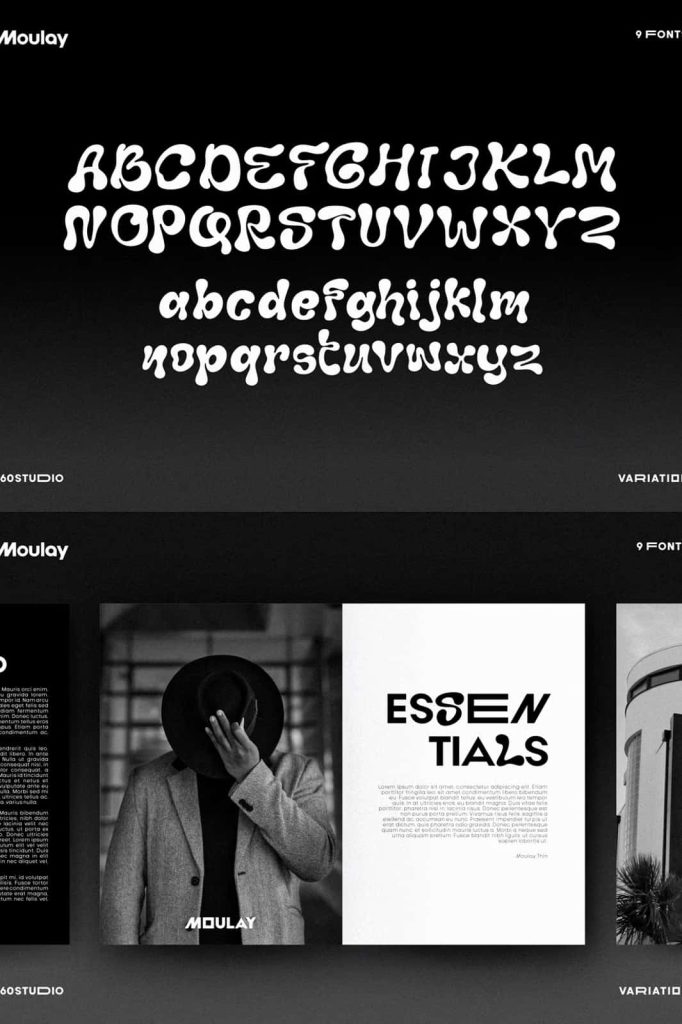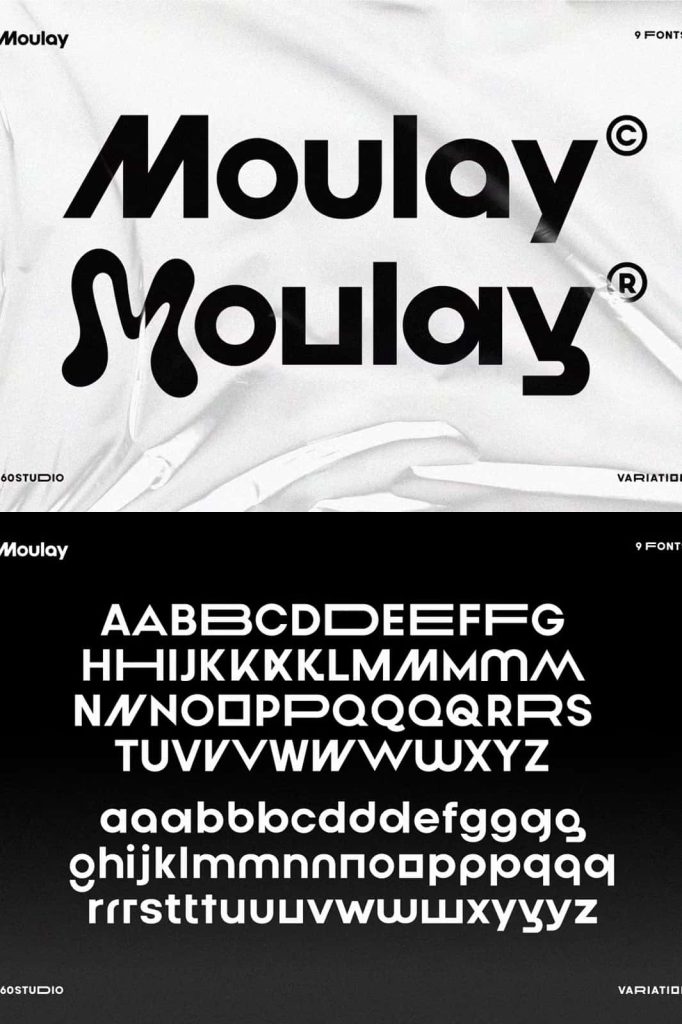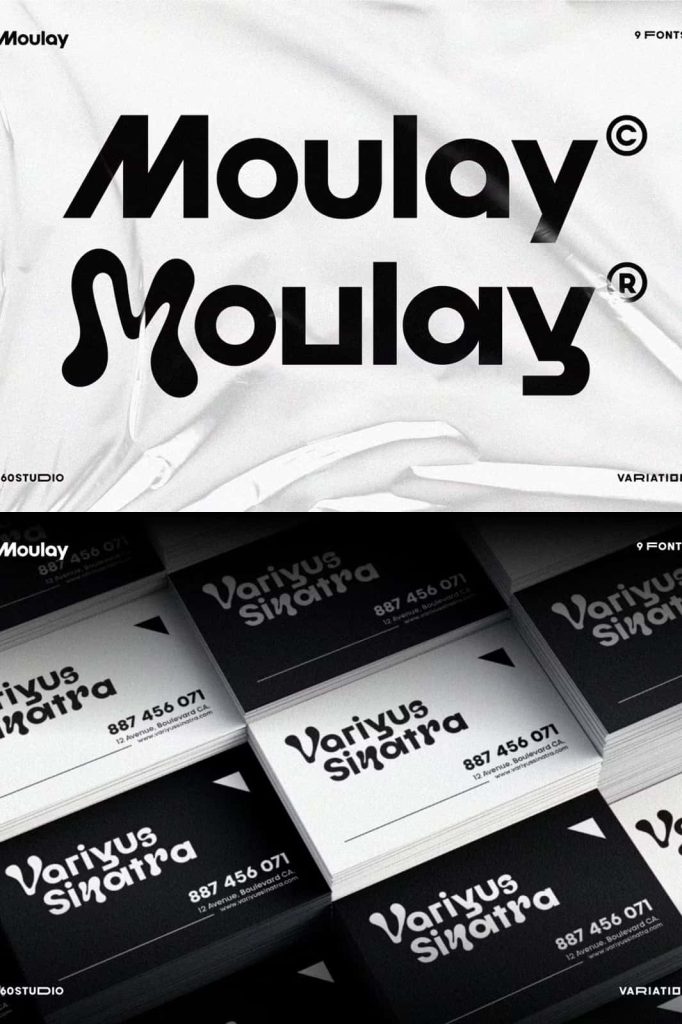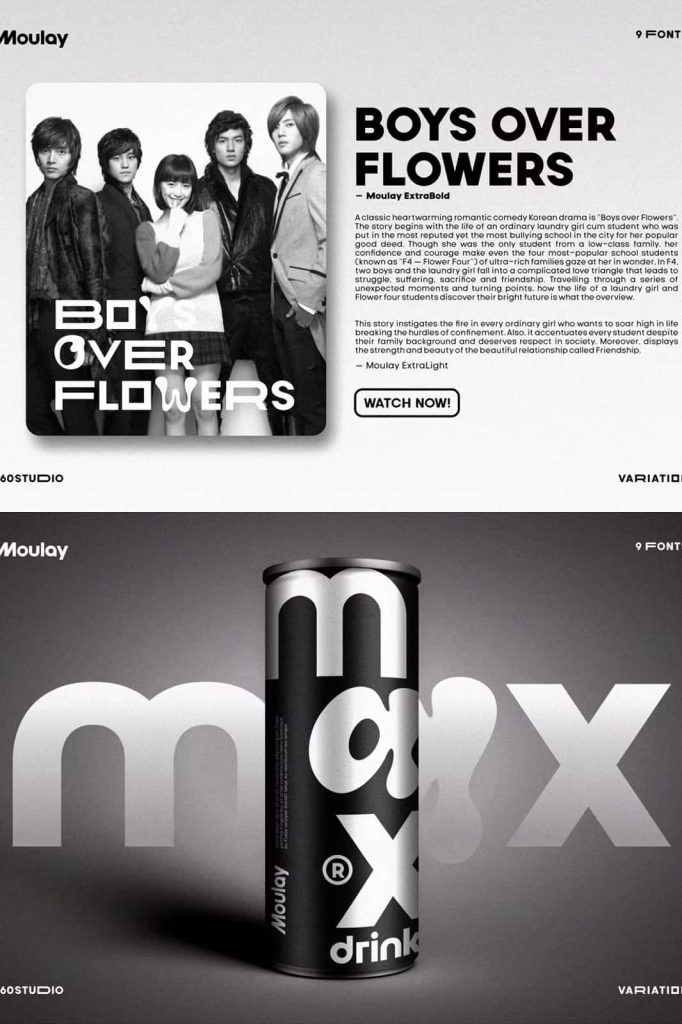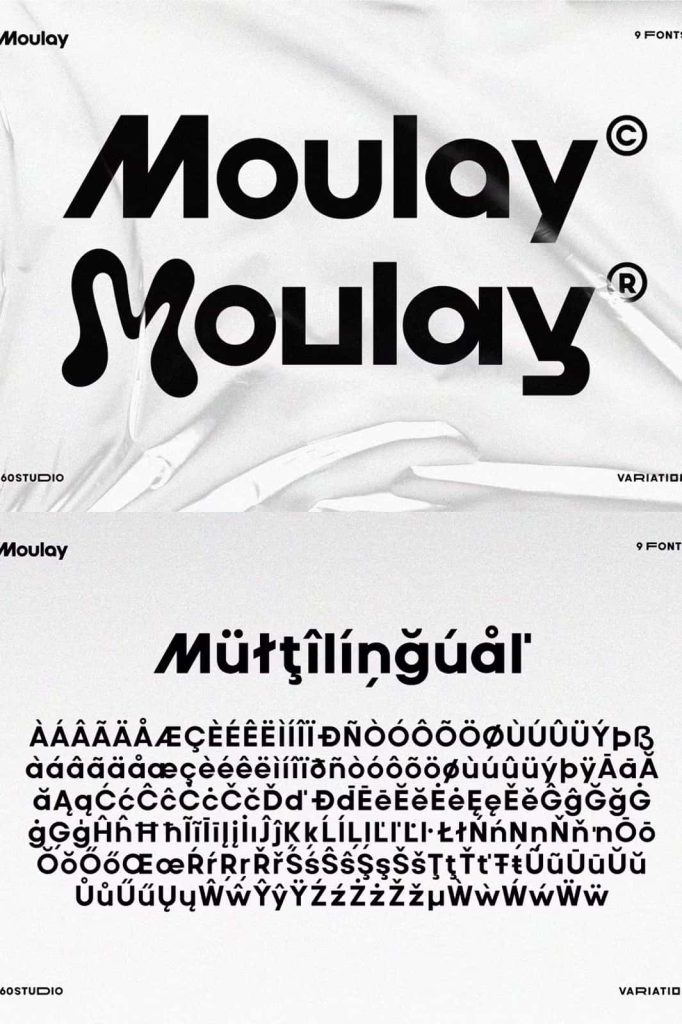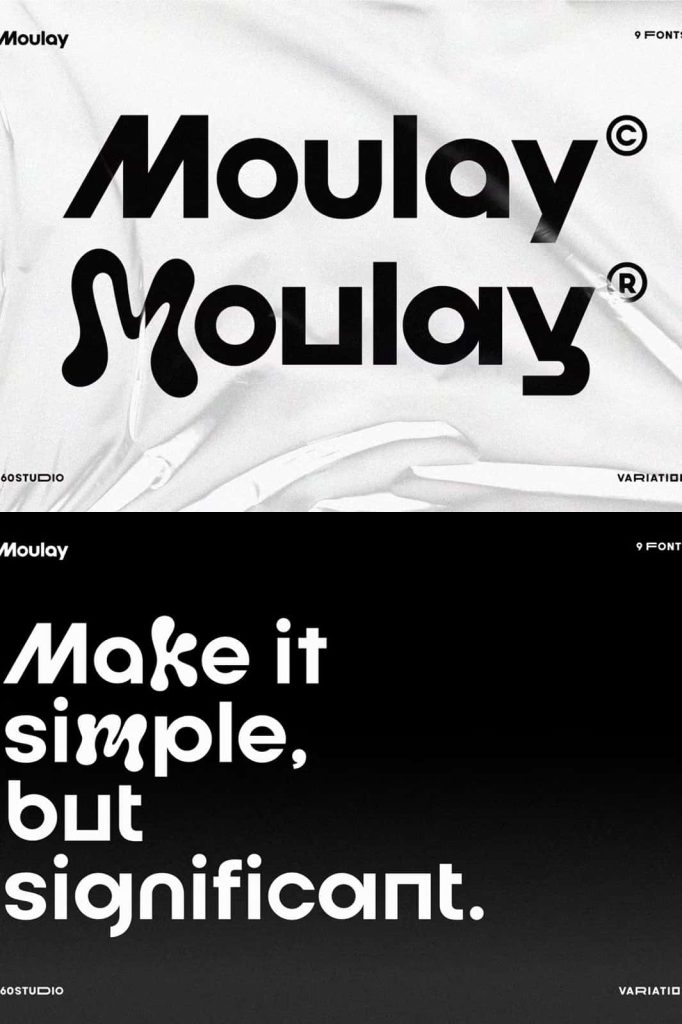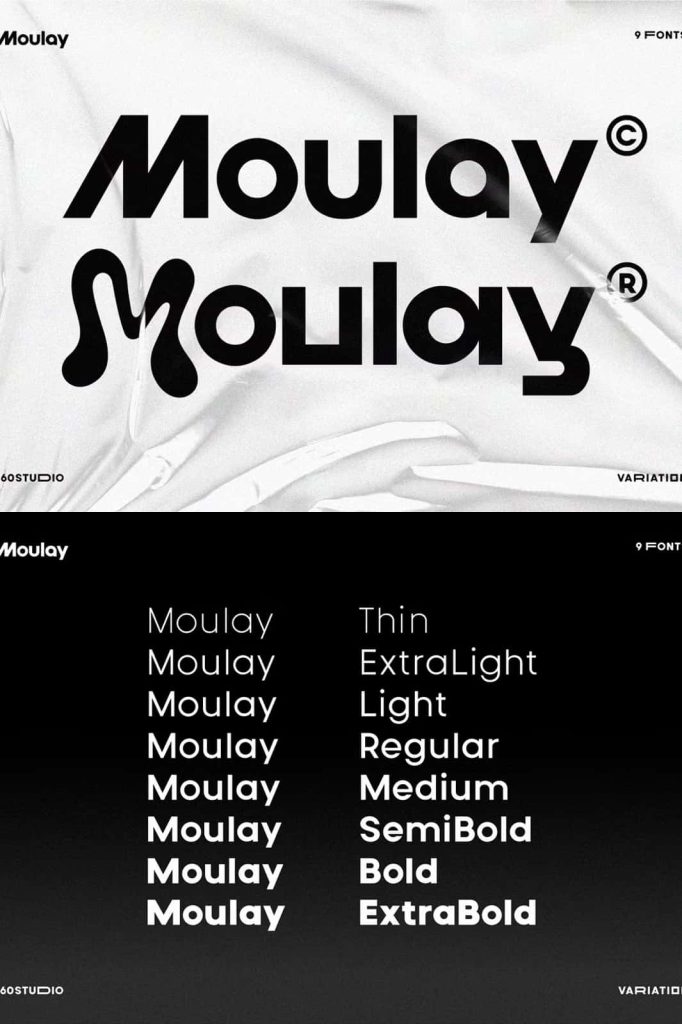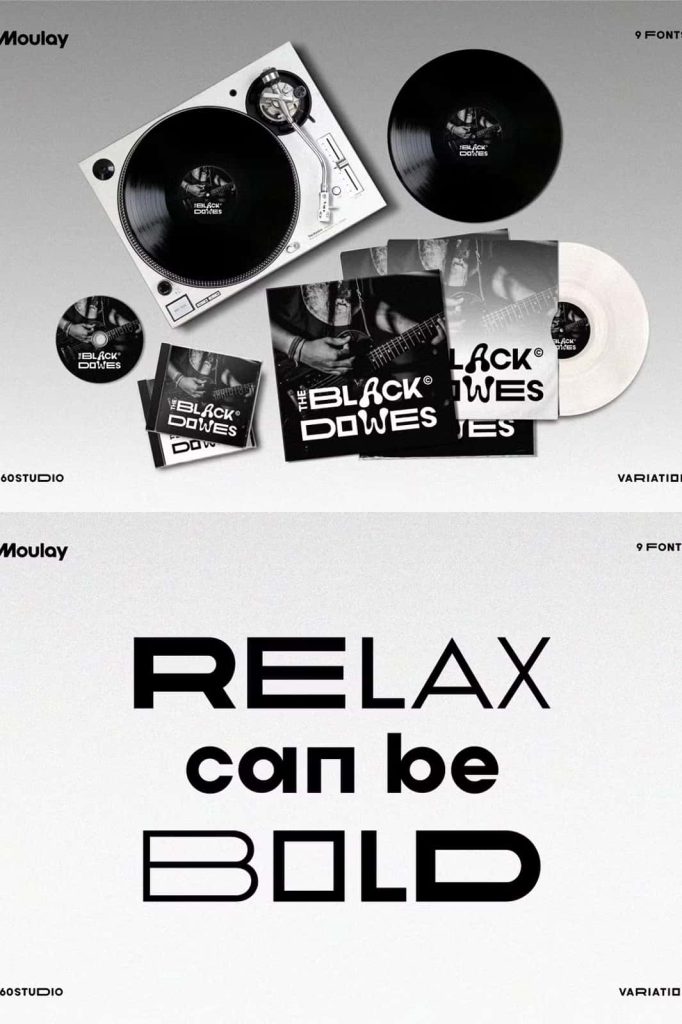
Moulay Sans Font Pairing
Moulay is a casual, strong, and fun pairing of sans typefaces crafted to deliver balance, versatility, and personality in every design. This carefully developed font duo empowers designers to create bold visual systems without sacrificing harmony. Each typeface stands confidently on its own, yet both work seamlessly together to build dynamic and cohesive layouts.
Moulay brings energy into modern typography. It blends approachable character with structured precision, allowing you to communicate clearly while maintaining creative expression. Whether you work on branding, editorial design, digital interfaces, or promotional materials, Moulay provides the flexibility you need to shape impactful compositions.
A Perfectly Balanced Sans Serif Duo
Moulay was designed with intention and clarity. Instead of pairing unrelated fonts, this sans font combination was built side by side to ensure consistent proportions, spacing, and visual rhythm. The result feels unified and purposeful.
One typeface delivers bold strength and confident structure. The other introduces a more relaxed and playful tone. Together, they create contrast without conflict. Designers can easily assign one style to headlines and the other to body text, building clear hierarchy and flow across any layout.
Strong Yet Approachable Character
Moulay captures strength through solid letterforms and balanced geometry. At the same time, it maintains a casual tone that feels friendly and accessible. This dual personality makes it suitable for both professional and creative industries.
Use the stronger style for powerful headlines, bold statements, and attention-grabbing banners. Apply the softer companion font for subheadings, captions, or supporting text. This contrast enhances readability while reinforcing visual interest.
Designed to Work Together and Independently
Moulay Sans Font Pairing offers complete flexibility. Each typeface performs effectively on its own. You can use one style for minimalist branding or modern editorial layouts without relying on the other. When paired together, they form a cohesive typographic system that feels intentional and polished.
The consistent metrics and complementary weights ensure smooth transitions between styles. Designers do not need to constantly adjust spacing or alignment. Moulay simplifies workflow while maintaining high-quality visual results.
Seamless Harmony in Layout Design
Typography influences how audiences experience content. Moulay supports structured layouts with clear hierarchy and balanced composition. Its well-calibrated proportions prevent overcrowding while maintaining strong presence.
This harmony proves especially valuable in branding systems, website designs, magazines, and marketing materials. You can confidently build consistent visual identities across multiple platforms using this versatile sans serif pairing.
Ideal for Branding and Creative Projects
Strong branding depends on cohesive typography. Moulay helps businesses and creatives develop distinctive visual voices. Its casual yet bold personality adapts to industries such as lifestyle brands, fashion labels, startups, technology companies, and creative agencies.
Designers can use Moulay for logos, wordmarks, packaging, advertising campaigns, social media graphics, and corporate materials. The pairing supports both playful and professional aesthetics, depending on how you apply it.
Modern Appeal for Digital and Print
Moulay performs consistently across print and digital formats. In print, it maintains sharp clarity on posters, brochures, and packaging. In digital environments, it renders cleanly on websites, apps, and social media platforms.
Its balanced construction ensures readability on various screen sizes. Whether displayed in large headlines or smaller interface text, Moulay preserves its visual integrity and approachable style.
Create Dynamic Hierarchy with Ease
Effective design requires clear hierarchy. Moulay simplifies this process by offering two complementary sans typefaces that naturally support differentiation. You can establish contrast through weight, tone, and proportion without disrupting cohesion.
This structured approach strengthens user experience and enhances communication. Readers can quickly identify headings, subheadings, and supporting text, making your layouts feel organized and intentional.
Why Choose Moulay Sans Font Pairing?
- Casual, strong, and fun sans serif combination
- Designed side by side for perfect harmony
- Works beautifully together or independently
- Ideal for branding, editorial, and digital design
- Balanced proportions and consistent metrics
Moulay Sans Font Pairing gives designers the freedom to experiment while maintaining structure and clarity. It balances bold strength with friendly personality, allowing you to craft modern and engaging typography systems. Add Moulay to your collection and create designs that feel cohesive, confident, and full of character.